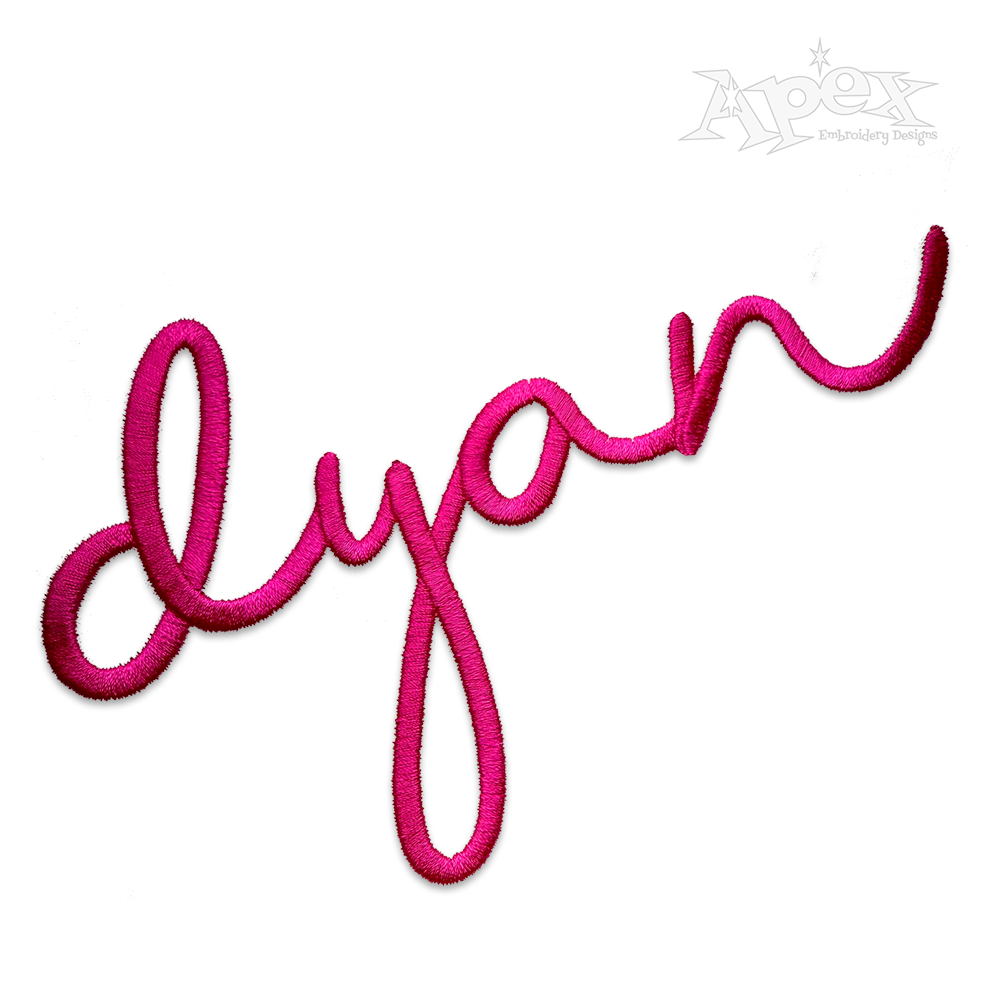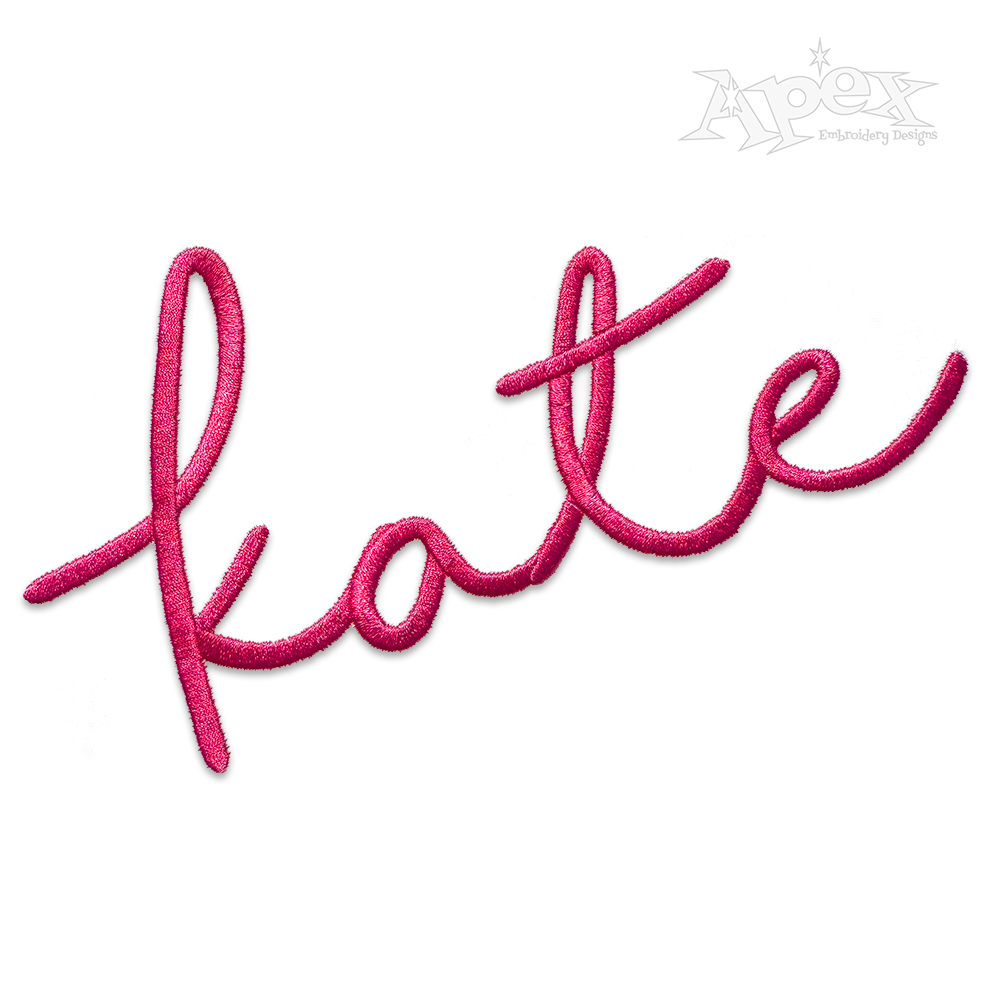
Shorelines Embroidery Font
Inspired by the relaxed, sun-drenched cadence of coastal mornings, the Shorelines Embroidery Font captures the effortless fluidity of hand-drawn calligraphy traced in wet sand. In digitizing this alphabet, our goal was to preserve the breezy, spontaneous lift of a personal signature while engineering the structural integrity required for flawless satin stitch embroidery. Each letterform flows into the next with organic grace, infusing custom monogramming and bespoke resort wear with an air of understated, barefoot luxury.
Project Ideas for Shorelines Embroidery Font
- Luxury Table Linens: Embroider relaxed coastal phrases or family initials onto washed Belgian linen dinner napkins and cocktail runners for sunlit alfresco dining.
- Bespoke Resort Wear: Personalize crisp cotton poplin cover-ups, linen camp-collar shirts, and terry-cloth poolside robes.
- Destination Bridal & Gifting: Create unforgettable heirloom keepsakes by embroidering matching straw market bags, floppy sun hats, and bridal party travel pouches.
- Heirloom Children's Apparel: Stitch timeless summer names and monograms onto seersucker sunsuits, knit bonnets, and light cotton sweaters.
- Personalized Weekend Gear: Elevate heavy canvas duffels, boat totes, and striped beach towels with a distinctively breezy cursive identity.
- Corner Diagonal on Linens: Float the lettering diagonally across the bottom corner of dinner and cocktail napkins, positioning it roughly 1.5 to 2 inches from the hemmed edge for an effortless, artisanal drape.
- Over-Pocket & Left Chest: Anchor names or brief single-word script roughly 7 to 9 inches down from the shoulder seam on relaxed button-downs, camp shirts, and light jackets.
- Cuff Accents: Stitch initials or a meaningful date along the outer edge of a sleeve cuff for a subtle, bespoke tailor’s touch.
- Centered Horizontal on Accessories: Position larger lettering balanced across the upper third of canvas boat totes or centered on zippered cosmetic bags for clean visual harmony.
Shorelines Craft & Letterform Details
Translating an expressive, freehand script into machine-stitched embroidery requires an intimate understanding of thread tension, pull compensation, and directional satin flow. Rather than taking a mechanical approach, we sculpted each stroke of Shorelines with varying satin column widths that mimic the natural downpress and release of an ink pen. Connecting strokes are engineered with soft entry and exit inclinations, ensuring that adjacent letters flow together seamlessly with minimal thread jumps and zero unsightly bulk at overlapping intersections.
Special digitizing care was dedicated to the ascenders and descending loops of letters like 'g', 'y', and 'f', maintaining their airy, open silhouettes even at the compact 0.75-inch scale. The result is a satin stitch alphabet that remains crisp, resilient, and beautifully raised whether stitched onto light linen, structured seersucker, or thick terry cloth.